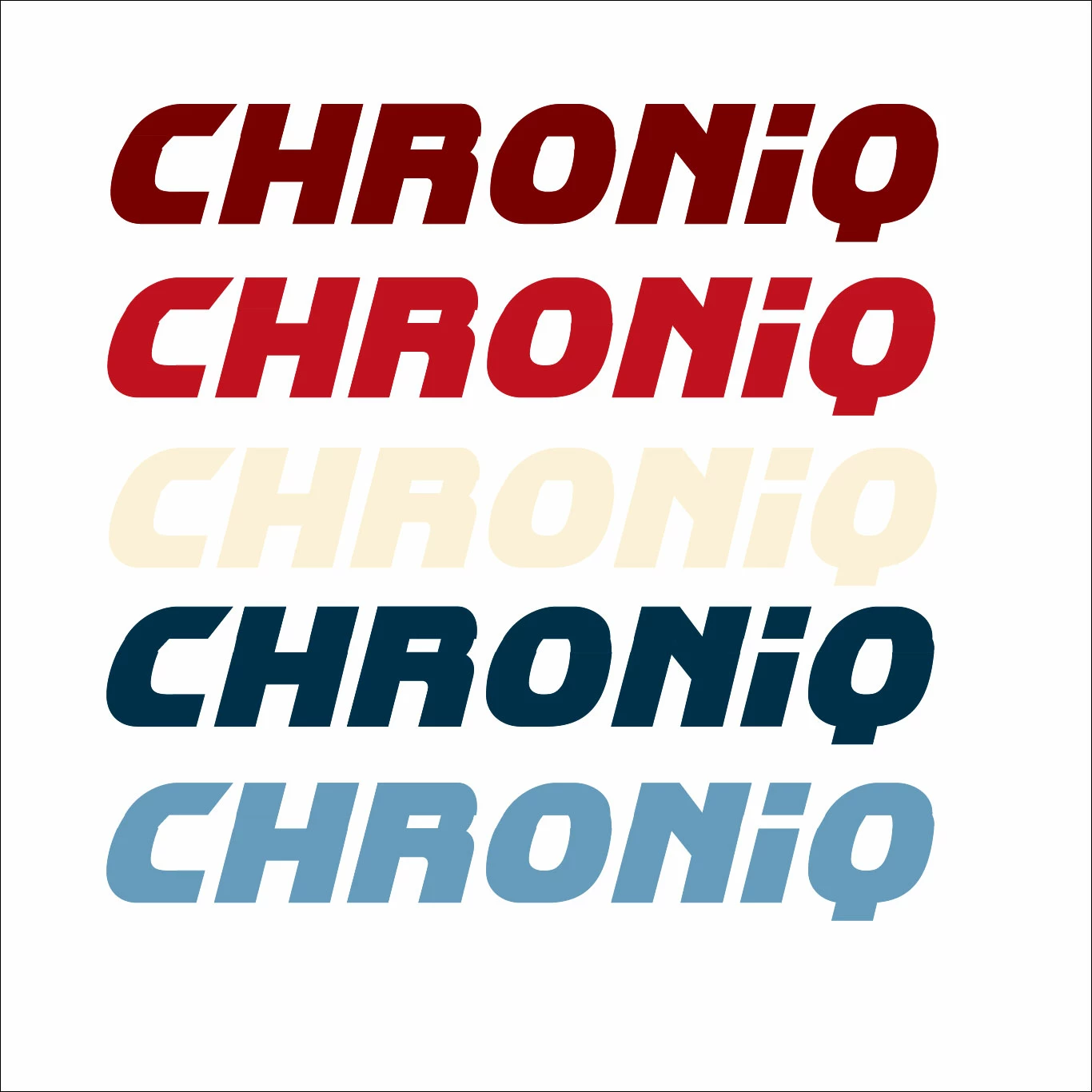
Font pairing cc running with scissors
Which font should I use as body text when my heading is cc running with scissors? I adjusted the font a little bit.
How much body copy will be on the page? If it's a modest amount of copy a wide variety of typefaces could work, even semi-squared technical looking typefaces like Eurostile or Transducer VF. If the body copy is more than a couple of paragraphs, or spans multiple columns then it would be more appropriate to use a serif typeface specificially oriented for longer passages of text.
I didn't have any personal recommendations so asked MS Copilot (similar to ChatGPT) and it provided these suggestions:
Here are five excellent body text fonts from Adobe Fonts that pair well with the expressive and playful CC Running With Scissors heading font:
1. Articulat CF
• Style: Geometric sans-serif
• Why it works: Clean, modern, and highly legible. It offers a sharp contrast to the quirky nature of your heading font.
2. Proxima Nova
• Style: Humanist sans-serif
• Why it works: Friendly and versatile, with excellent readability. It’s a popular choice for body text in both print and digital.
3. Source Sans
• Style: Neutral sans-serif
• Why it works: Designed for clarity and legibility, especially on screens. It’s unobtrusive and lets your heading font take the spotlight.
4. Freight Text Pro
• Style: Serif
• Why it works: Adds a touch of sophistication and warmth. Ideal if you want a more editorial or literary tone.
5. Skolar Sans
• Style: Humanist sans-serif
• Why it works: Slightly more personality than Source Sans, with excellent readability and a friendly tone.